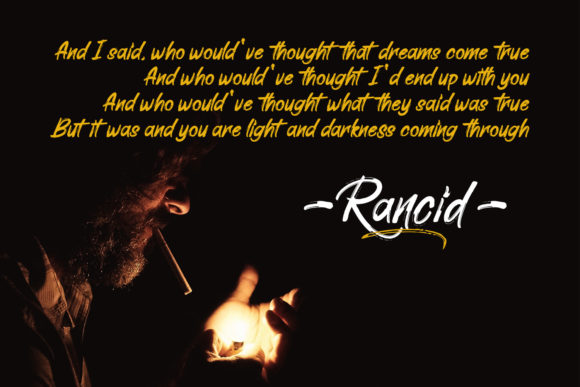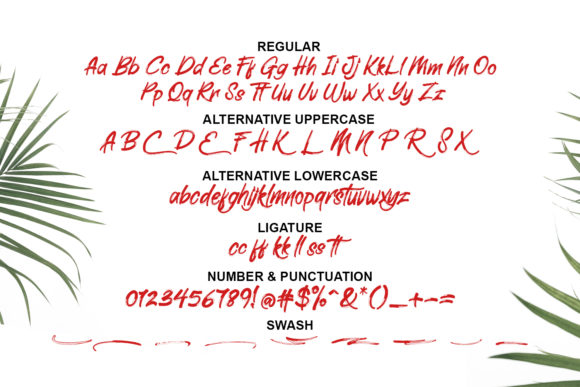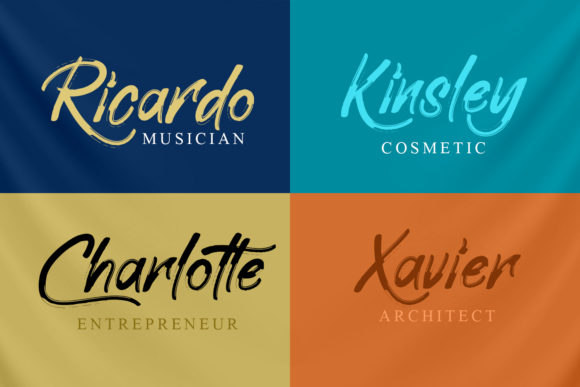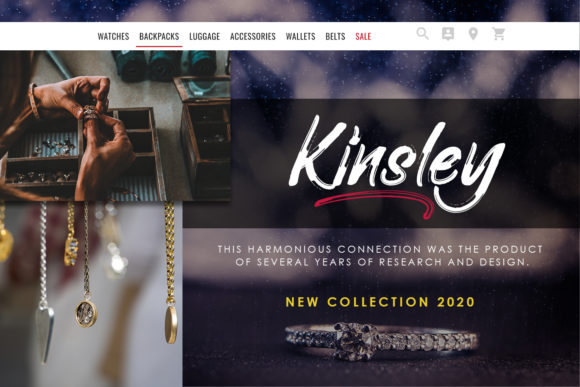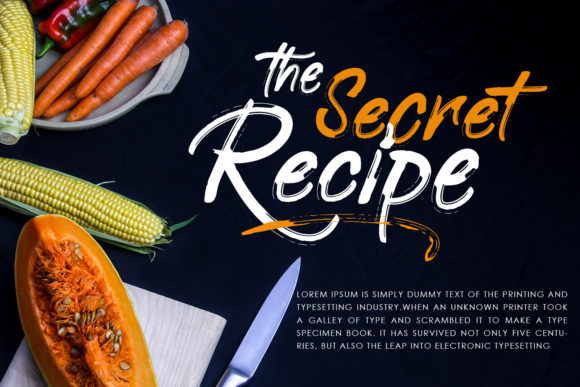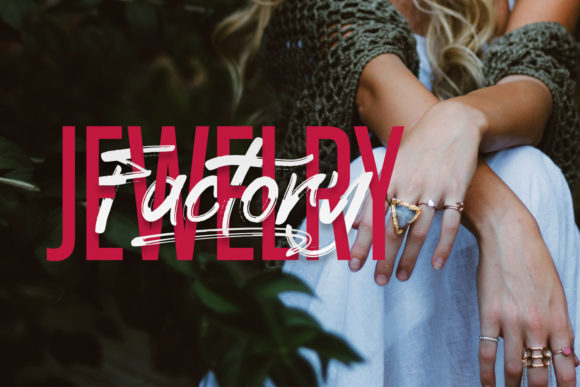
Elliot Font
About Elliot Font
Elliot is a charming dry brush script full of elegance and life. This bold font will add a dash of personality to your next creative endeavor.